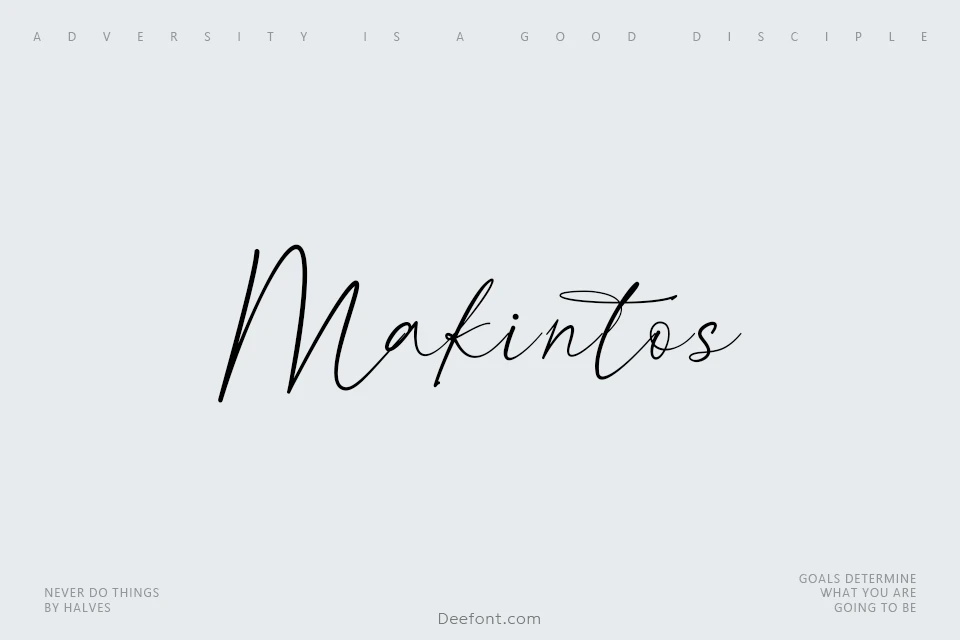
Makintos Font
Makintos Font is a beautiful, classic, and stylish handwritten script font crafted by Basnistd. It is perfect for signage, branding, websites, red wine labels, and editorial designs. The font includes all uppercase and lowercase letters, multilingual support, punctuation, and swash features, making it ideal for creative and elegant typographic projects. Please note that Makintos is available as a demo font for personal use only, and the full version with a commercial license can be purchased separately.